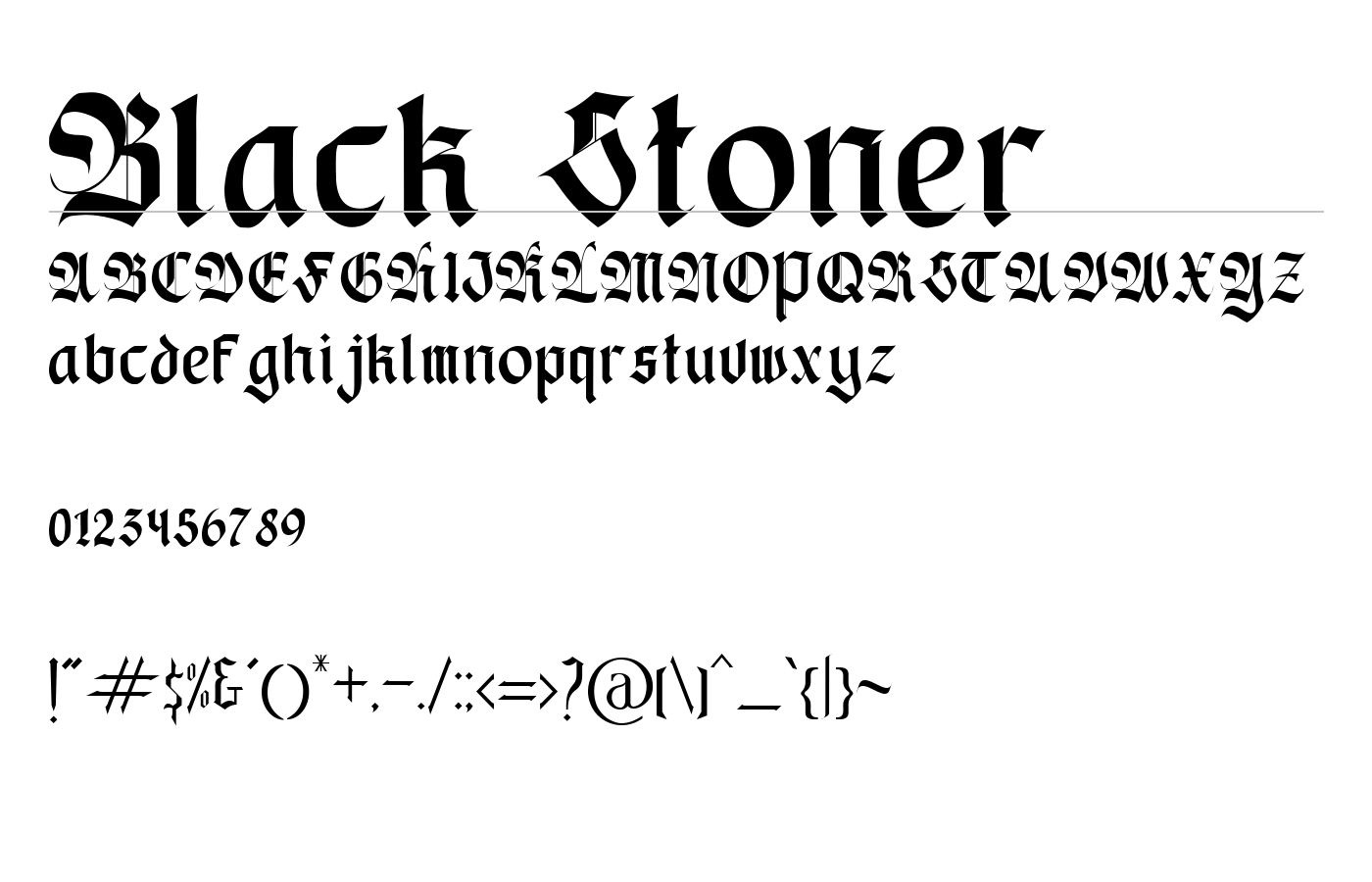
Black Stoner is a bold blackletter serif font with strong Gothic influences, featuring sharp, angular strokes and thick, dramatic weight. Its dense, historic style conveys a vintage and authoritative mood, making it ideal for use in logos, headlines, or branding that want to evoke tradition, strength, and a striking presence. This font shines in projects needing a powerful and classic look, such as posters, fashion, or editorial design with a medieval or old-world flair.
Black Stoner Font
About Black Stoner Font